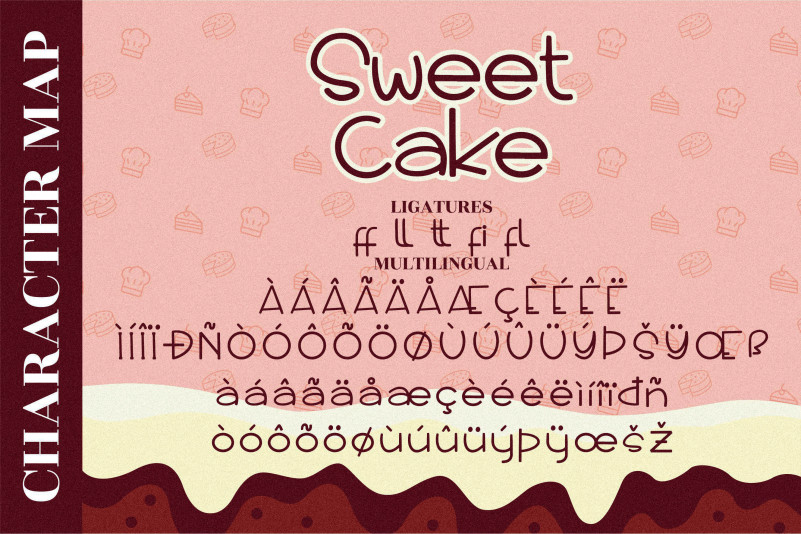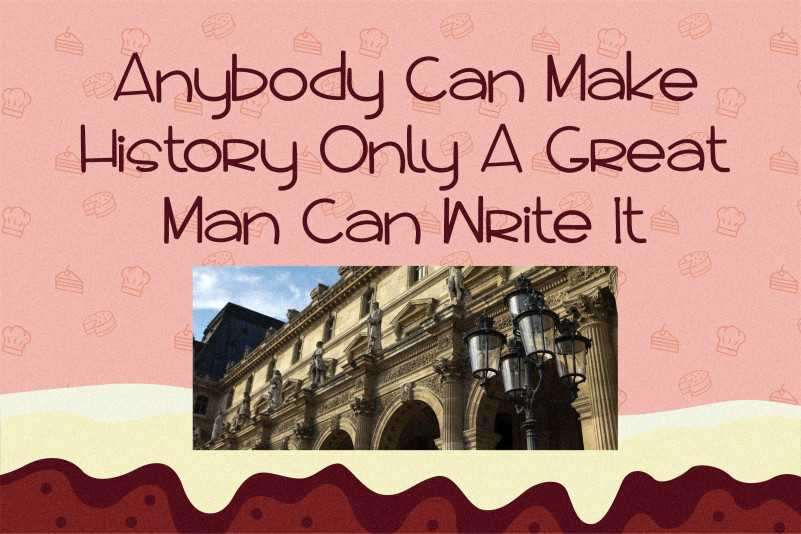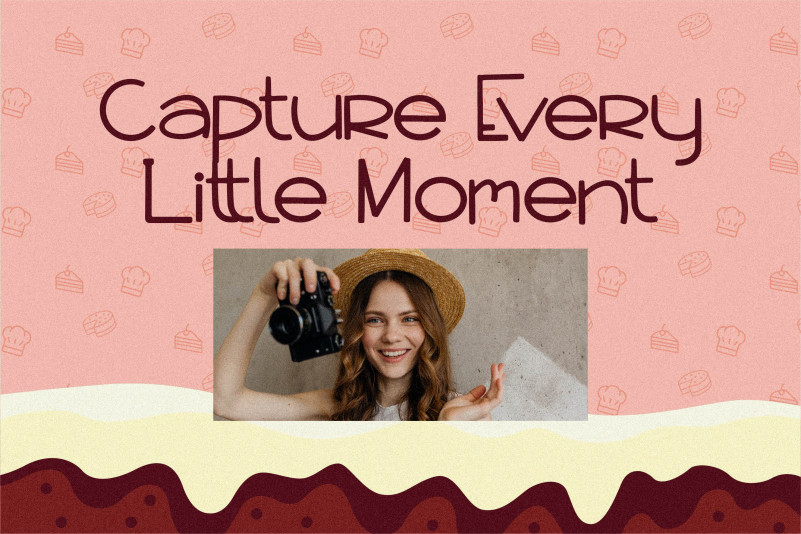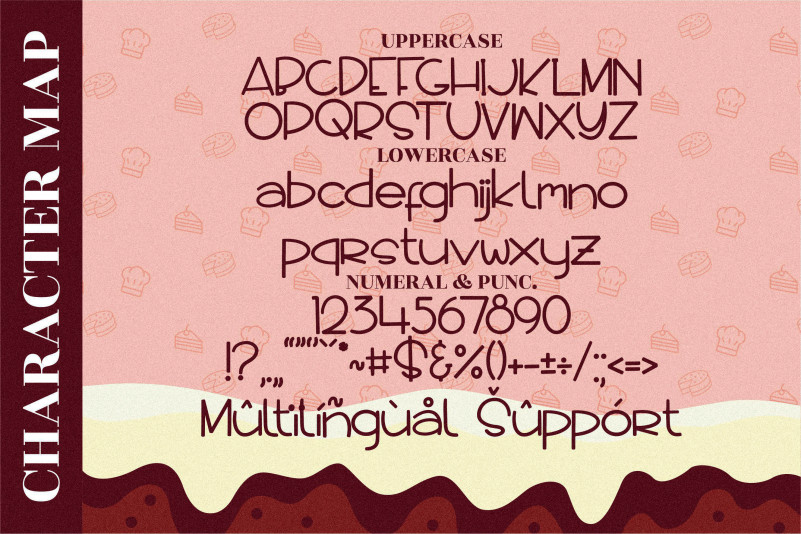
Sweet Cake Font
Sweet Cake Handwritten Font
This is a simple, thin lettered and friendly handwritten font. No matter the topic, this font will be an incredible asset to your fonts’ library, as it has the potential to elevate any creation.